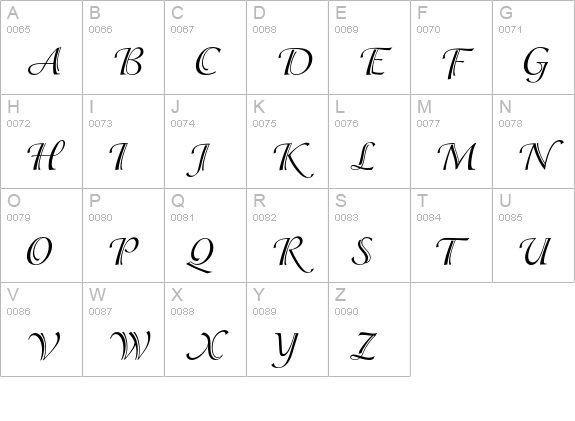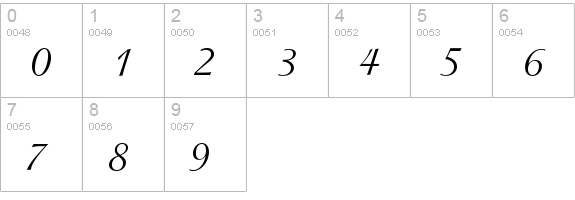
IsadoraEF-Regular is the standard, neutral variant in the IsadoraEF typeface family \xE2\x80\x94 well suited to general body text, paragraphs, and standard typographic work.
IsadoraEF-Regular is a beautiful and elegant font that exudes sophistication and style. This font is perfect for adding a touch of class to any design project. With its delicate curves and graceful letterforms, IsadoraEF-Regular captures attention and leaves a lasting impression. This font is versatile and can be used for a variety of purposes, from branding and logo design to packaging and invitations. Its timeless appeal ensures that it will never go out of style, making it a valuable addition to any designer's arsenal. One of the best things about IsadoraEF-Regular is that it is free! Yes, you read that right. This stunning font is freely available to download at FontsMarket.com. Whether you are a professional designer or a hobbyist, you can access this font without having to spend a dime. The free availability of IsadoraEF-Regular allows designers to experiment and explore its possibilities without any financial constraints. This font opens up a world of creativity and allows designers to bring their visions to life without breaking the bank. So why wait? Head over to FontsMarket.com and download IsadoraEF-Regular for free. With its timeless elegance and freely available nature, this font is sure to become a favorite among designers everywhere. Don't miss out on the opportunity to enhance your designs with this stunning and versatile font.